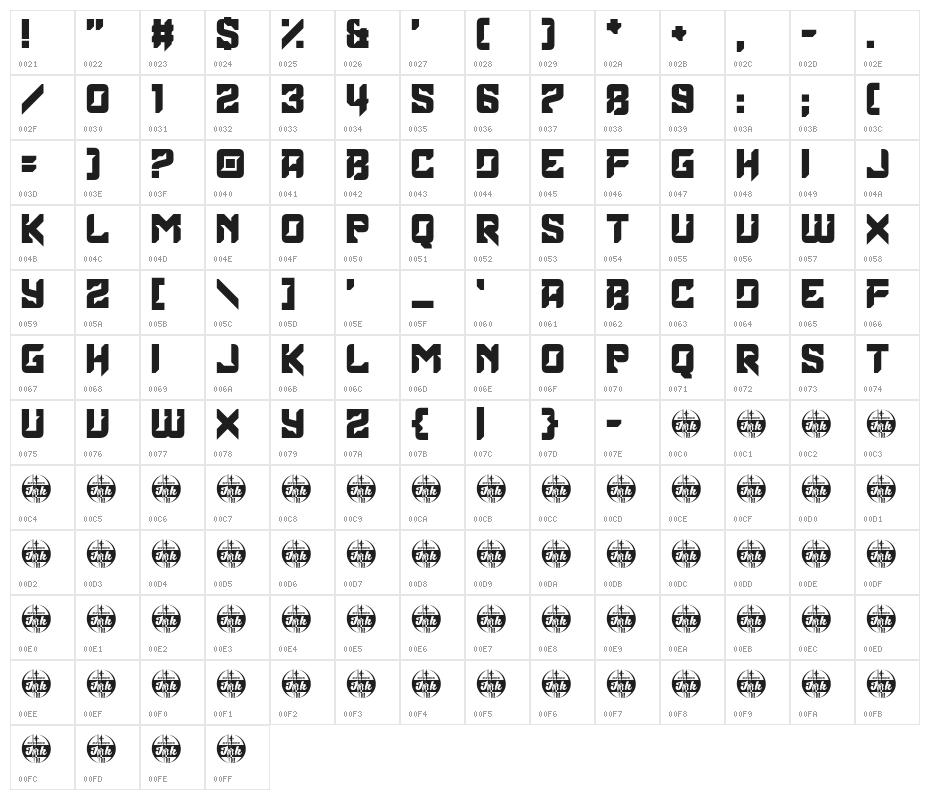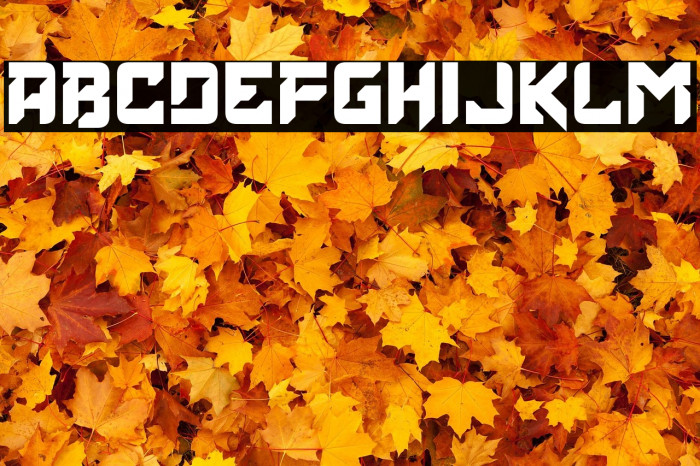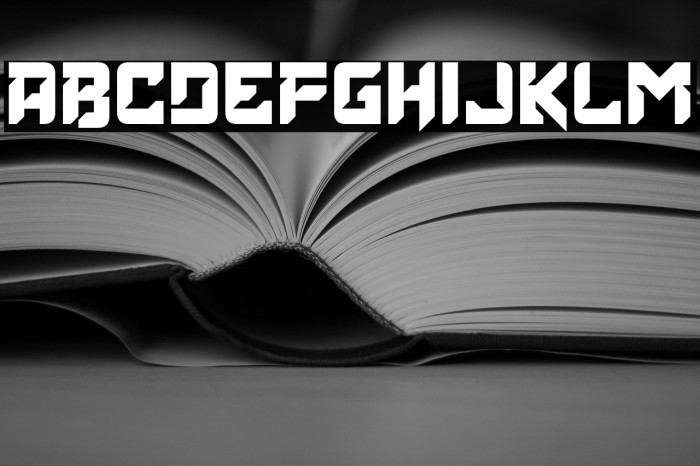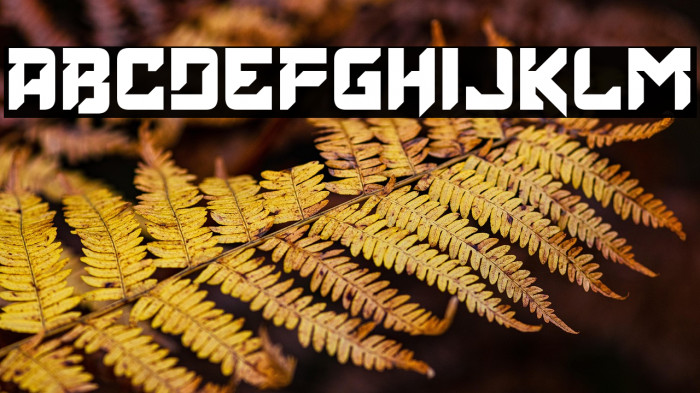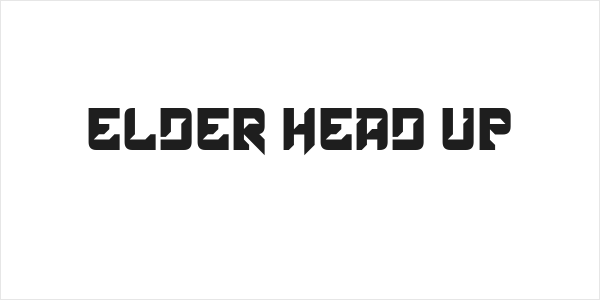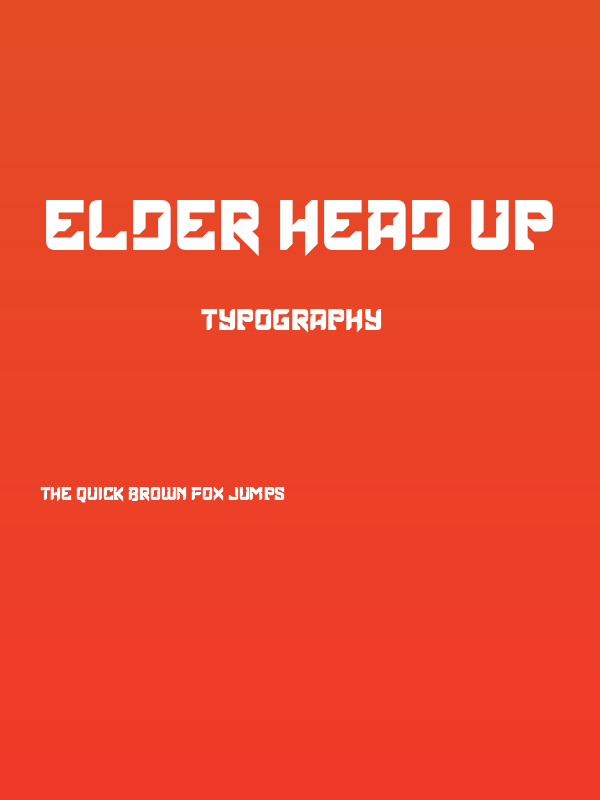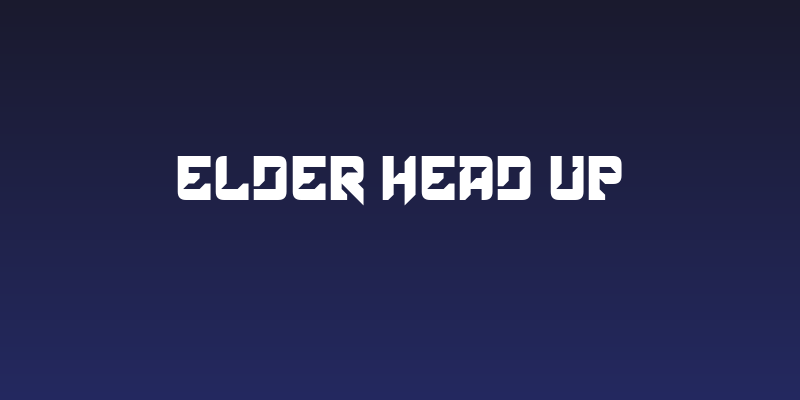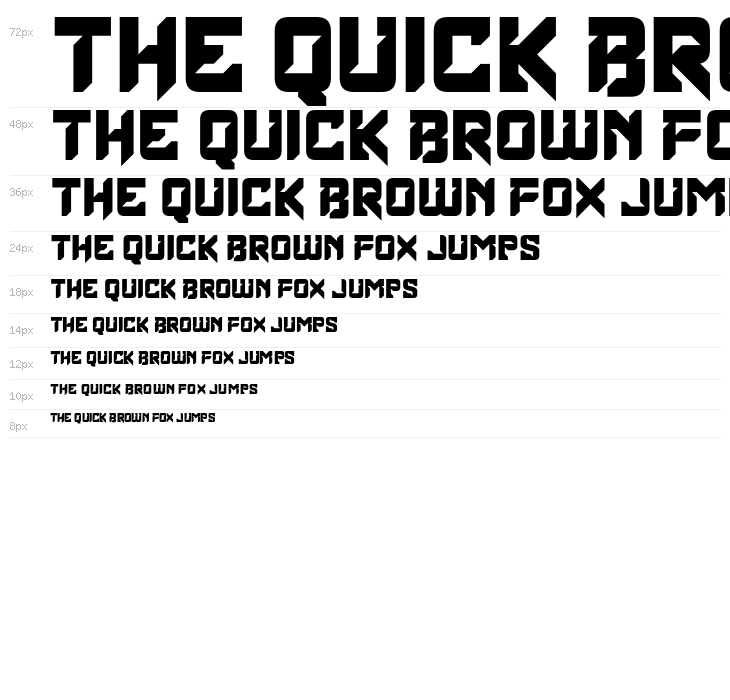
Elder Head Up Font
Elder Head Up Description
This font features a bold and geometric design with sharp angles and a blocky appearance. The characters are constructed with a strong, solid structure, giving them a futuristic and industrial feel. The uppercase letters are particularly striking, with unique cuts and angles that create a sense of movement and energy. The numbers and special characters maintain this bold style, ensuring consistency across all glyphs. The font's distinct style makes it ideal for attention-grabbing headlines and designs that require a modern, edgy look.
Proposed ProjectsIdeal for use in sci-fi themed designs, video game titles, posters, and branding that requires a modern and edgy aesthetic.